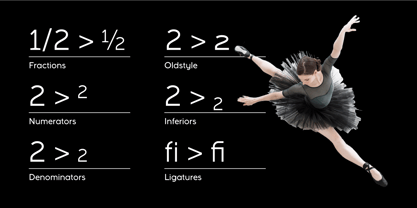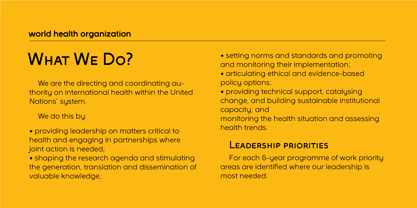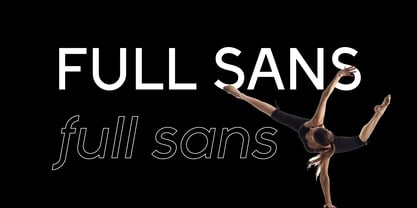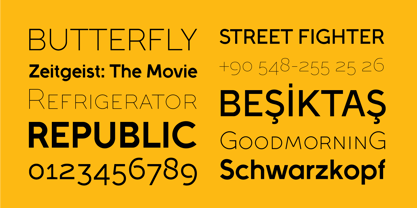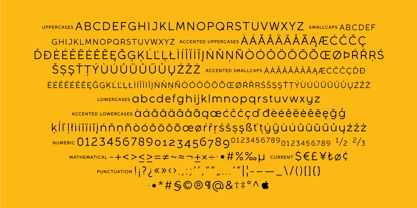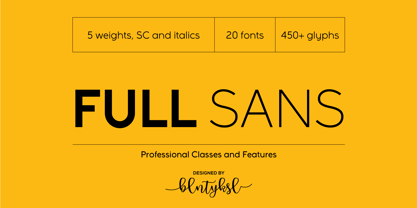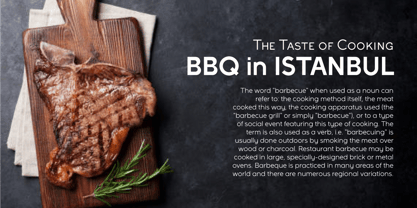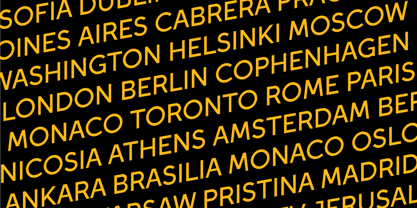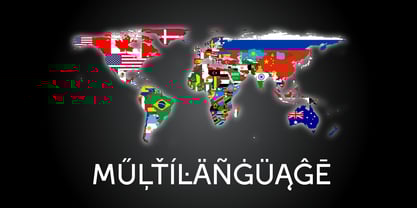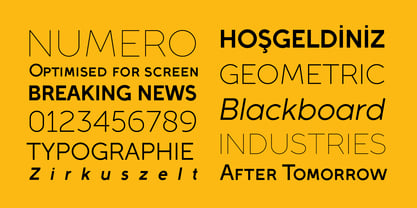
Full Sans
by Bülent Yüksel
Full Sans is a geometric sans in the tradition of Futura, Avant Garde and the like. It has a modern streak which is the result of a harmonization of width and height especially in the lowercase letters to support legibility. Full Sans is the younger brother of original Full Neue, Full Slab and Full Tools. Ideally suited for advertising and packaging, editorial and publishing, logo, branding and creative industries, poster and billboards, small text, wayfinding and signage as well as web and screen design. Full Sans provides advanced typographical support for Latin-based languages. An extended character set, supporting Central, Western and Eastern European languages, rounds up the family. The designation “Full Sans LC 50 Book” forms the central point. The first figure of the number describes the stroke thickness: 10 Thin to 90 Bold. Full Sans LC comes 5 weights and italics also Full Sans SC comes 5 weights and italics total 20 types. The family contains a set of 485 characters. Case-Sensitive Forms, Classes and Features, Small Caps from Letter Cases, Fractions, Superior, Inferior, Denominator, Numerator, Old Style Figures just one touch easy In all graphic programs. Full Sans is the perfect font for web use. You can enjoy using it. UPDATE: 08 March 2019 - Fixed extension of glyhps "y" and "g". - "LineGap" error has been fixed. - Fixed bug in "onum", "pnum", "tnum" and "tnum" software in OpenType feature.
Based in Istanbul, Turkey, Bülent Yüksel began his career as a graphic designer in 1996. He was Illustration and black pen work and oil painting painter. Ultimately, he devoted himself to "Typeface Design", which is the most difficult discipline of "Graphic Design". Bülent officially created his foundry in 2013 with his MyFonts debut of Formetic. Since then, this show has continued with the high-selling Full Sans, which is "a modern sans serif" with a geometric touch. Then, he became popular with Bosphorus. He still continues to create new fonts full time.Bülent Yüksel was born in Istanbul, 1973. He married and has two children. Bülent Yüksel's font design philosophy is: "There is nothing as satisfying as doing a good quality job."